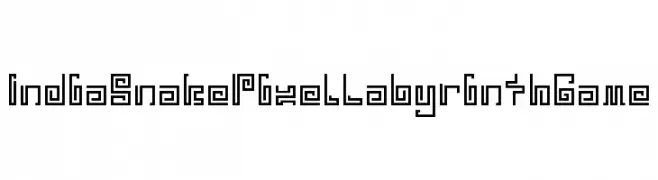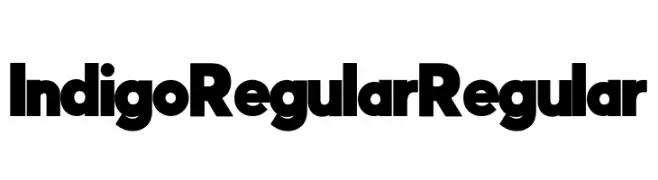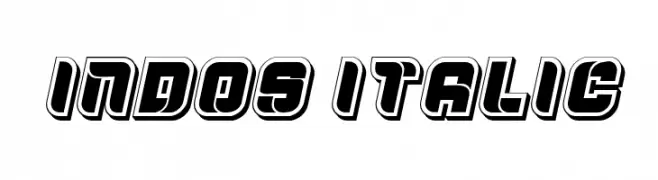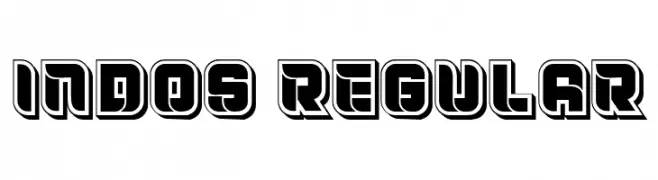
A pixelated, maze-like font with a geometric and modern style.
A pixelated, maze-like font with a retro, digital aesthetic.
A bold, geometric sans-serif font with a distinctive outline style.
A bold, geometric font with uniform stroke widths and a modern aesthetic.
A bold, modern font with geometric shapes and tight spacing.
Bold, italicized font with a three-dimensional outline, ideal for impactful designs.
A bold, geometric font with a three-dimensional, retro-futuristic style.
A bold, italicized font with a dynamic and modern style.
A bold, geometric font with strong, angular lines and a modern, assertive style.
A modern, geometric font with clean lines and a minimalist design.